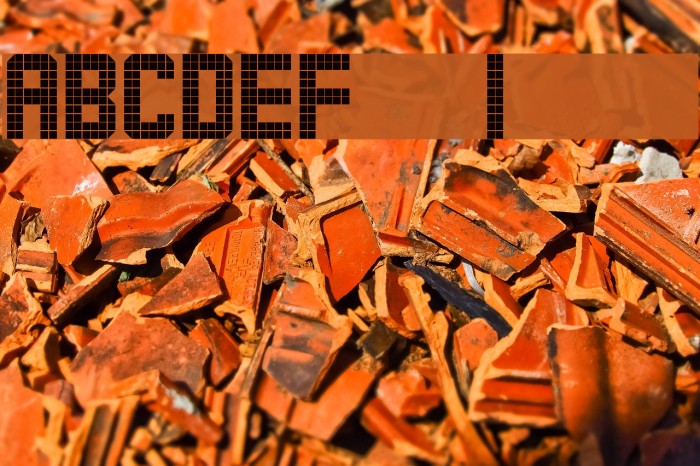
ARECIBO MESSAGE Font
This design is inspired by the iconic Arecibo message, a binary-encoded message sent into space in 1974. The characters are formed using a grid of square pixels, creating a digital and futuristic appearance. Each letter and symbol is constructed with precision, reflecting the structured and scientific nature of the original message. The font is highly geometric, with a blocky and pixelated style that evokes a sense of retro computing and early digital communication. The absence of curves and the reliance on straight lines and right angles give it a distinct, mechanical feel. This design is not a traditional font but rather a representation of a historical scientific artifact, capturing the essence of early attempts at extraterrestrial communication.
A pixelated, grid-based design inspired by the Arecibo message, reflecting a digital and futuristic style.
- Font: ARECIBO MESSAGE
- Proposed Projects: Ideal for projects related to science fiction, retro computing, digital art installations, or educational materials about space and communication.
- Overall Style: Futuristic, Retro
- Use Case: Logos, Posters, Digital Art